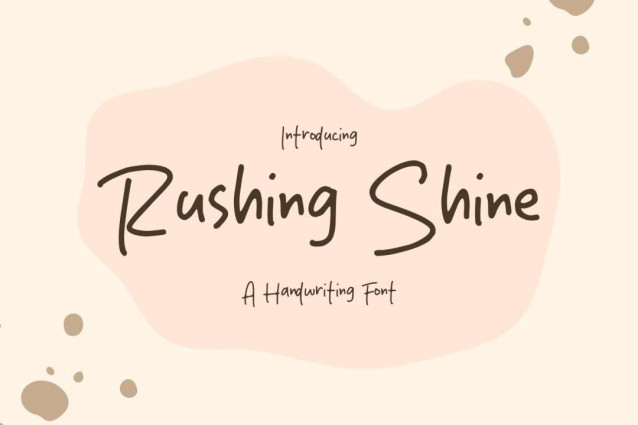
Rushing Shine Font
Rushing Shine Font is a simple and friendly handwritten font. Its natural and unique style makes it incredibly fitting to a large pool of designs. The only limit is your imagination!